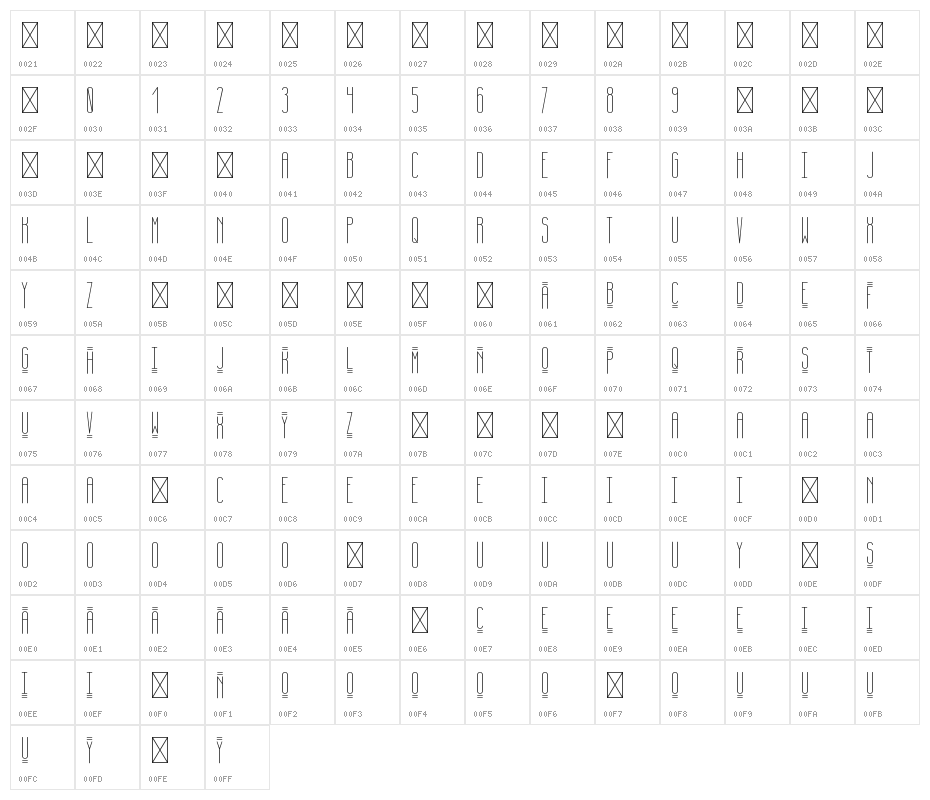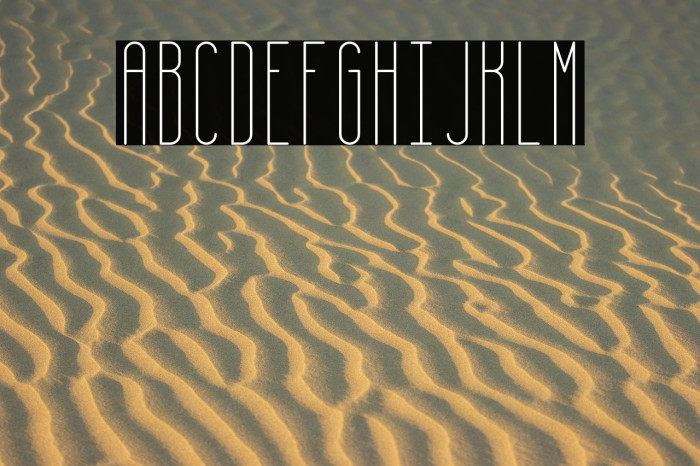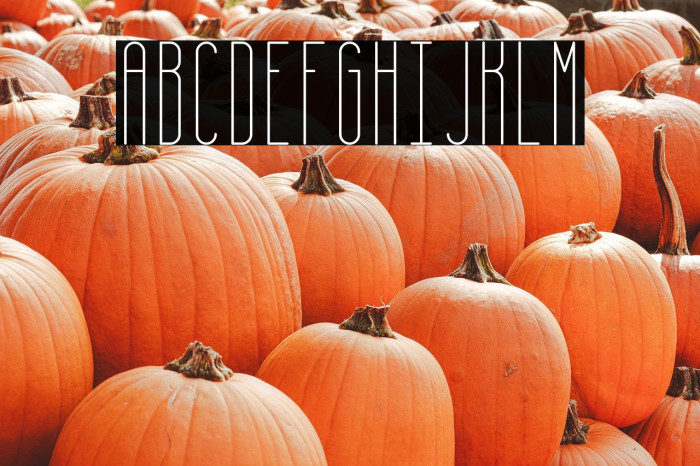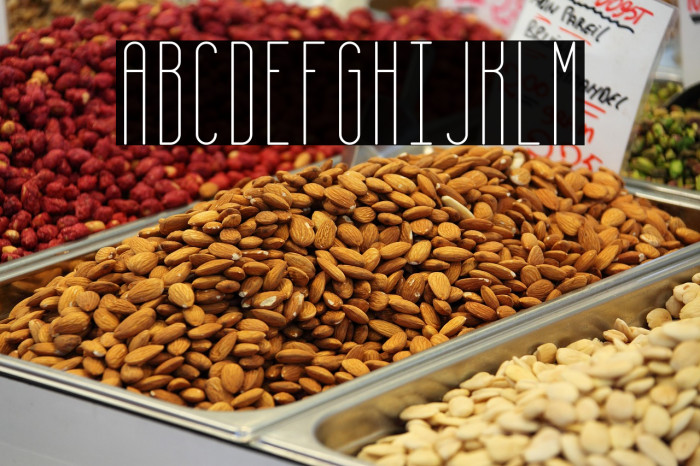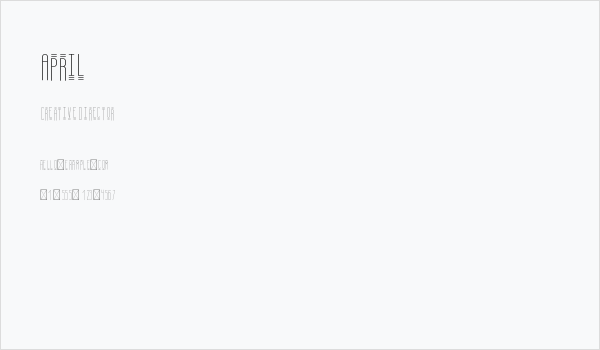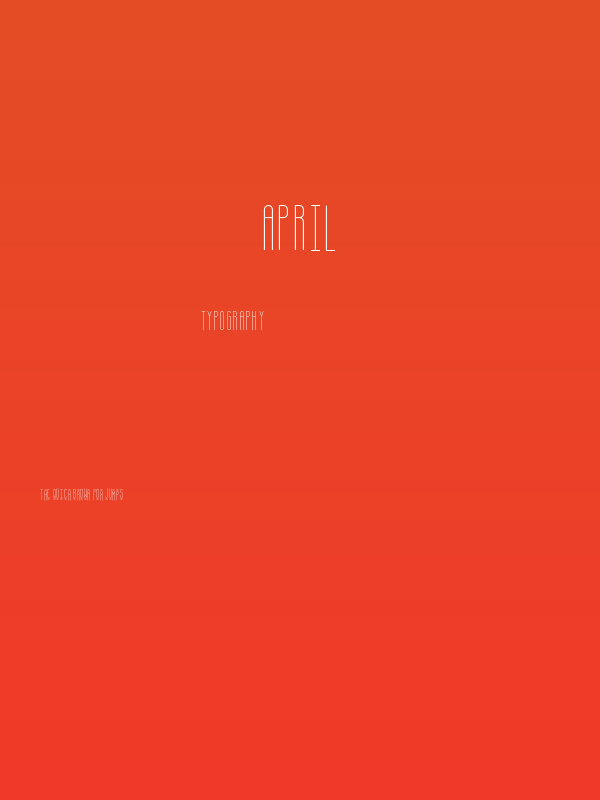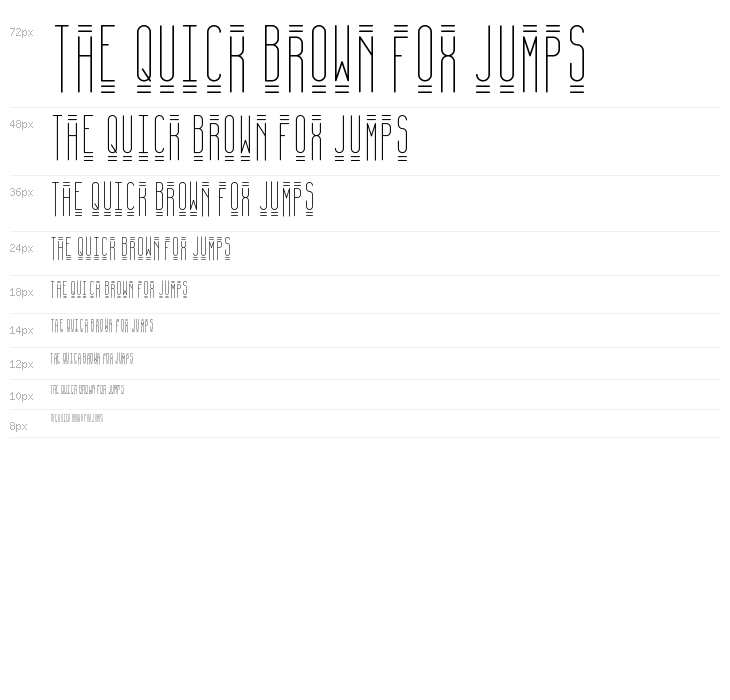
April Font
April Description
This font features a tall, narrow design with a distinct modern flair. The uppercase letters are elongated, giving a sleek and sophisticated appearance. The font includes unique diacritical marks, adding a decorative touch to certain characters. The numerals are consistent with the overall style, maintaining the elongated and narrow form. The absence of lowercase letters emphasizes its use for impactful, bold statements. The clean lines and geometric shapes make it suitable for contemporary designs, while the decorative elements add a touch of elegance.
| Proposed Projects | Ideal for modern branding, fashion magazines, and luxury product packaging. |